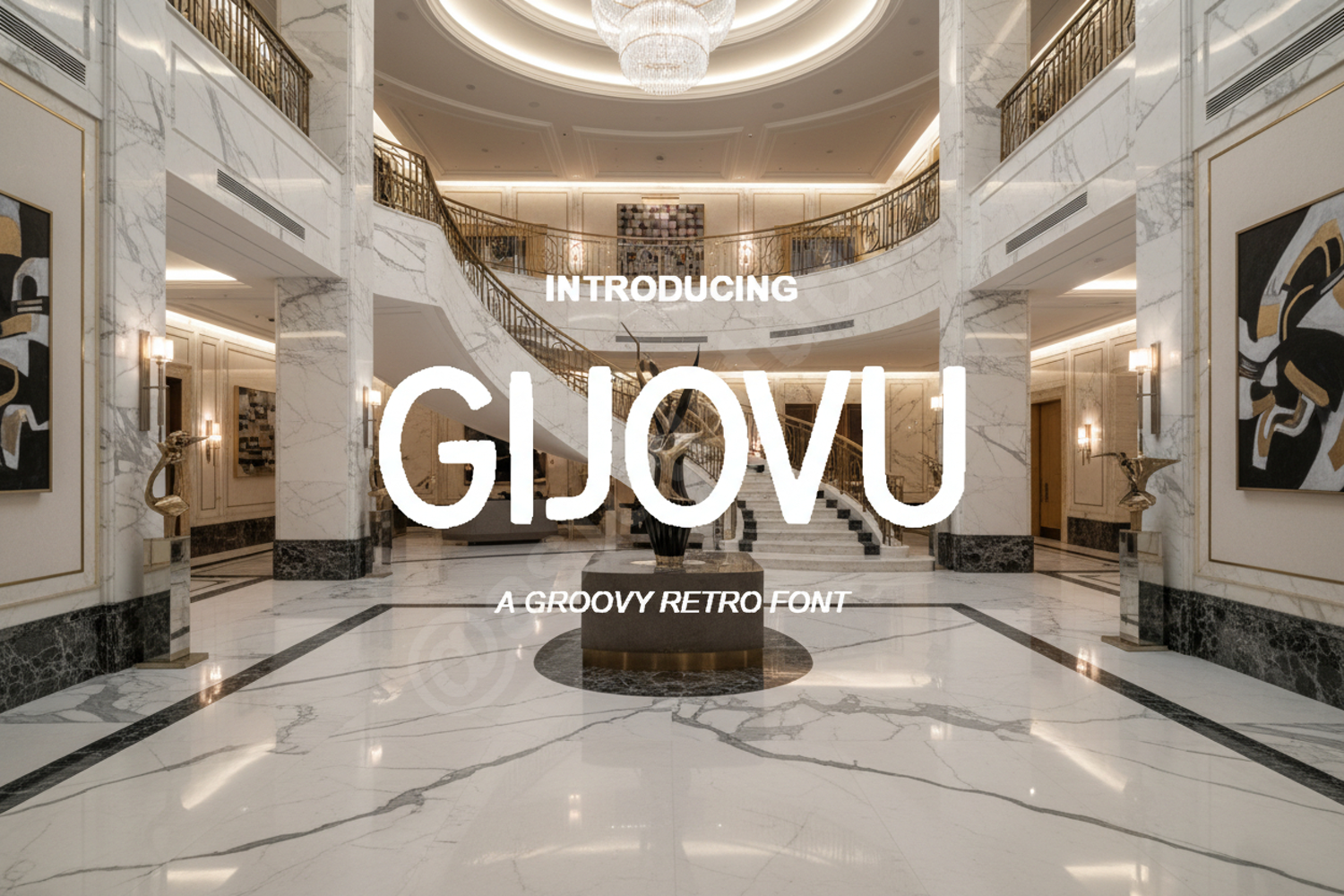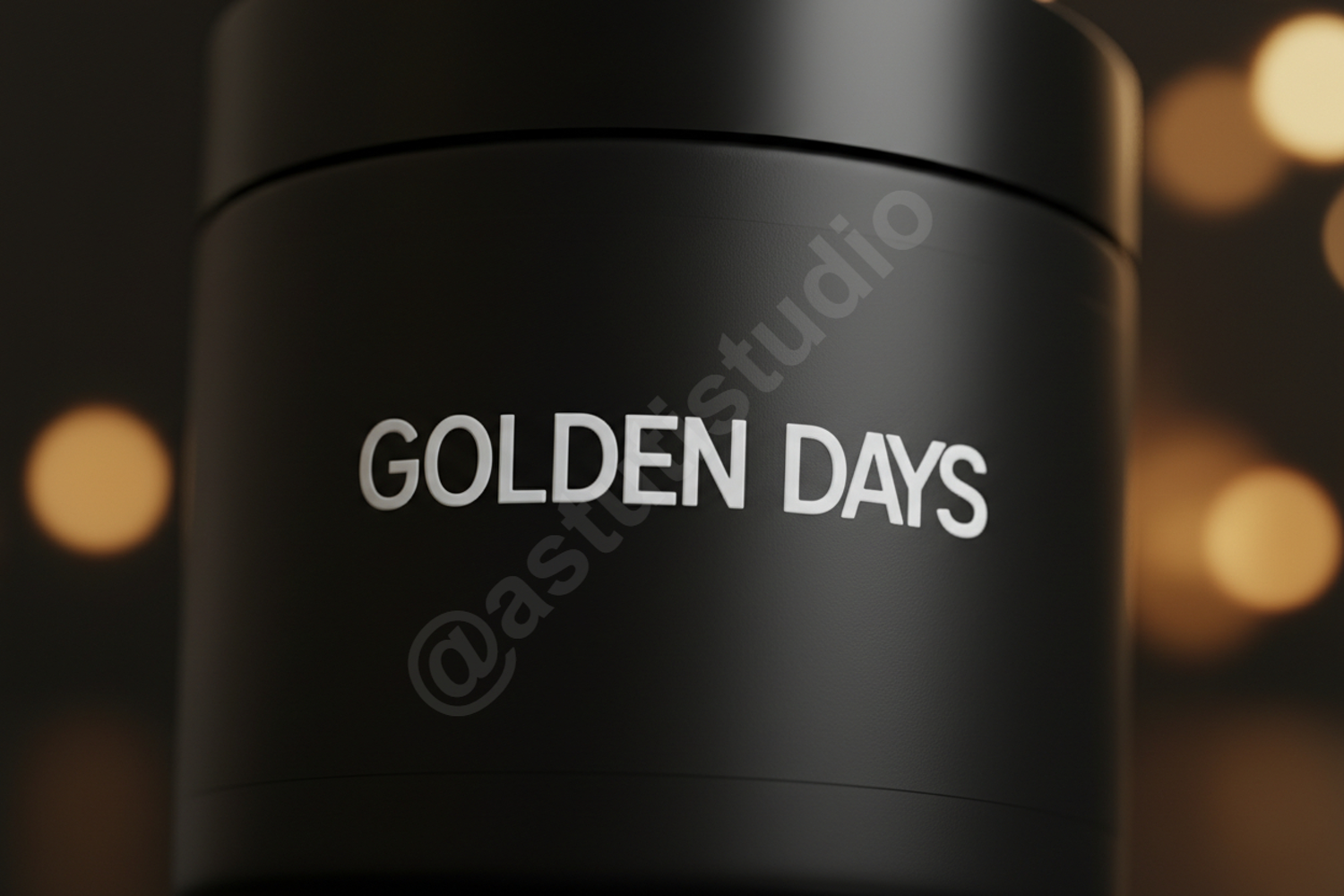
Gijovu - Sophisticated Modern Serif Typeface
Gijovu
Elevate your creative projects with Gijovu, a premium serif typeface meticulously crafted for high-end aesthetics. Gijovu strikes a perfect balance between timeless elegance and modern sophistication, making it an essential addition to any designer's toolkit. Its clean lines and unique character shapes ensure your work stands out with a professional and polished finish.
- Standard Ligatures and Alternates
- Branding and Identity: Create memorable logos and brand guidelines that exude luxury.
- Editorial Design: Perfect for magazine layouts, book covers, and high-fashion spreads.
- Wedding and Events: Add a touch of class to invitations, menus, and place cards.
- Digital Marketing: Enhance social media graphics and website headers with a refined look.
- Product Packaging: Ideal for premium cosmetics, apparel, and lifestyle brands.